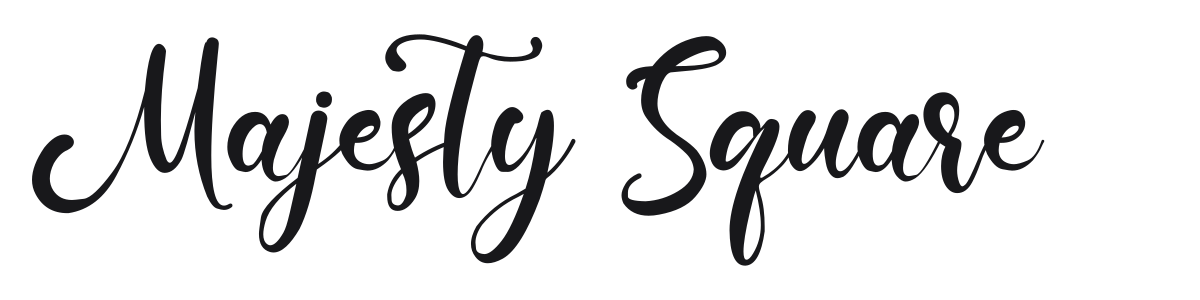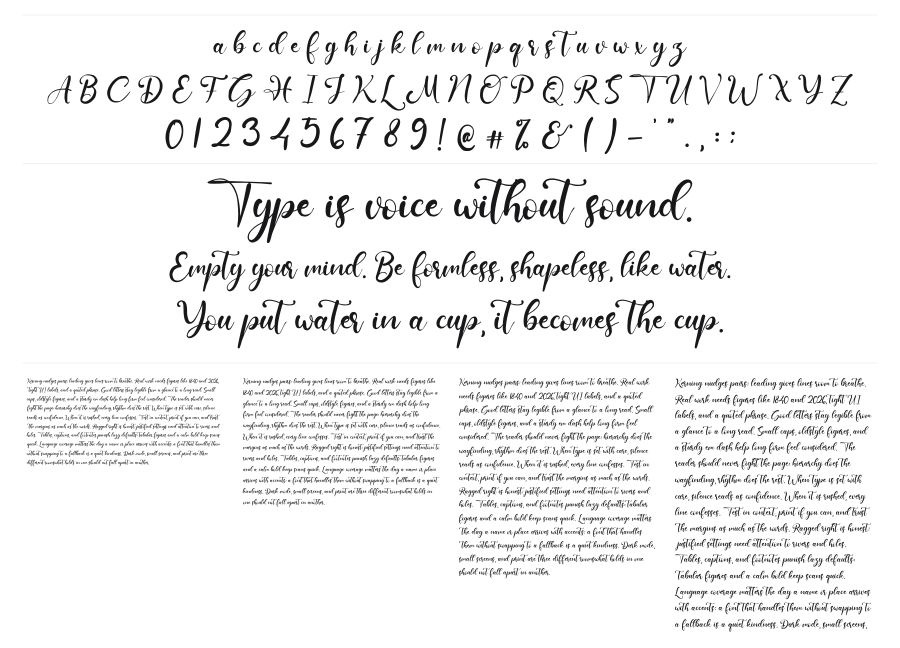
Majesty Square
Majesty Square is a flowing casual script with a warm, hand-lettered calligraphic feel. Generous looping ascenders, bouncy rhythm, and confident ink-pen stroke contrast give it an expressive personality that works across wedding stationery, branding, and lifestyle packaging. The connected letters flow naturally across a range of headline applications.